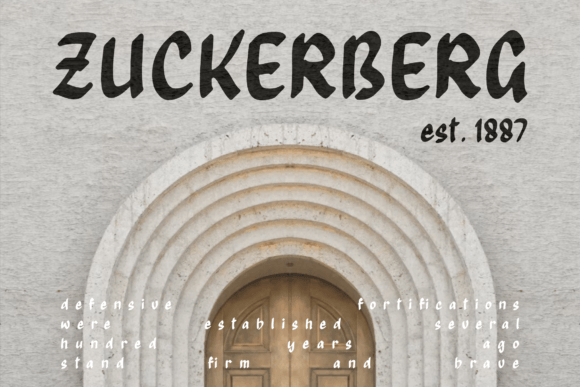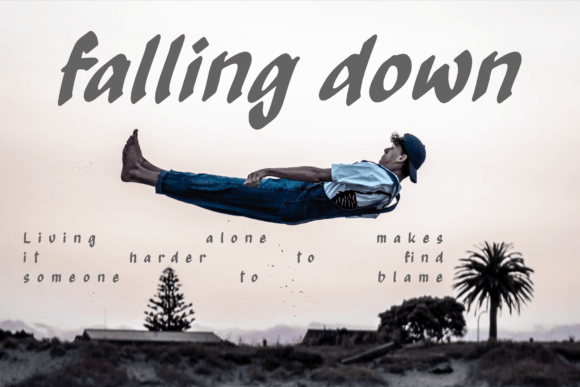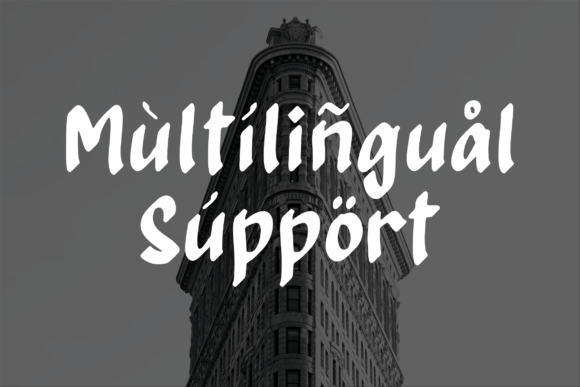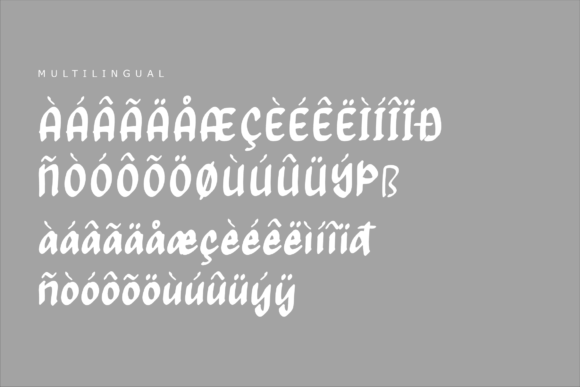
About Zildjane Display Font
Zildjane Display is a cool and hip handwritten font designed to bring a fresh and indie-inspired vibe to your creative projects. Its unique style offers a modern yet warm feel, making it ideal for designers looking to add personality and authenticity to their work. Whether you’re working on branding, posters, social media graphics, or personal projects, Zildjane Display font elevates your designs with its distinctive handwritten charm.
Modern Indie Style
Zildjane Display font captures the essence of indie culture with its casual, free-flowing handwritten forms. It balances a relaxed vibe with clean, stylish lines, making it perfect for contemporary design needs. This font offers a fresh alternative to overly formal typefaces, helping your project stand out with a warm, approachable character.
Versatile for Various Projects
The font is suitable for a wide range of design applications. Use Zildjane Display for logos that want to convey creativity and individuality, or create eye-catching posters and flyers that demand attention. It’s also a great fit for social media content, allowing brands and creators to communicate with a personal, authentic voice. From album covers to handmade product labels, this font adapts easily to many contexts.
Unique Personality and Warmth
One of the key strengths of Zildjane Display is its ability to add a human touch to digital and print designs. Its handwritten style evokes feelings of friendliness and creativity, making viewers feel connected to the content. This personality boost is crucial for brands and projects aiming to build trust and emotional engagement with their audience.
Easy to Use and Readable
Despite its artistic flair, Zildjane Display maintains excellent readability across different sizes and mediums. Whether used as a headline or a short phrase, this font ensures your message is clear without sacrificing style. It’s suitable for designers and beginners alike, providing a balance of aesthetics and usability.
Why Choose Zildjane Display Font?
Zildjane Display font stands out for its combination of modernity and warmth. It brings a handcrafted feel that is trendy yet timeless, making it a valuable asset for creative professionals seeking an indie look with broad appeal. Adding this font to your toolkit means you can effortlessly create designs that feel fresh, genuine, and stylish.
Enhance Your Designs with Zildjane Display
Incorporate Zildjane Display into your next project to give it a unique edge. Whether for digital branding, print layouts, or social media visuals, this font will enhance your creativity and help your work resonate with audiences. Try Zildjane Display today and experience the perfect blend of cool indie vibes and professional design quality.